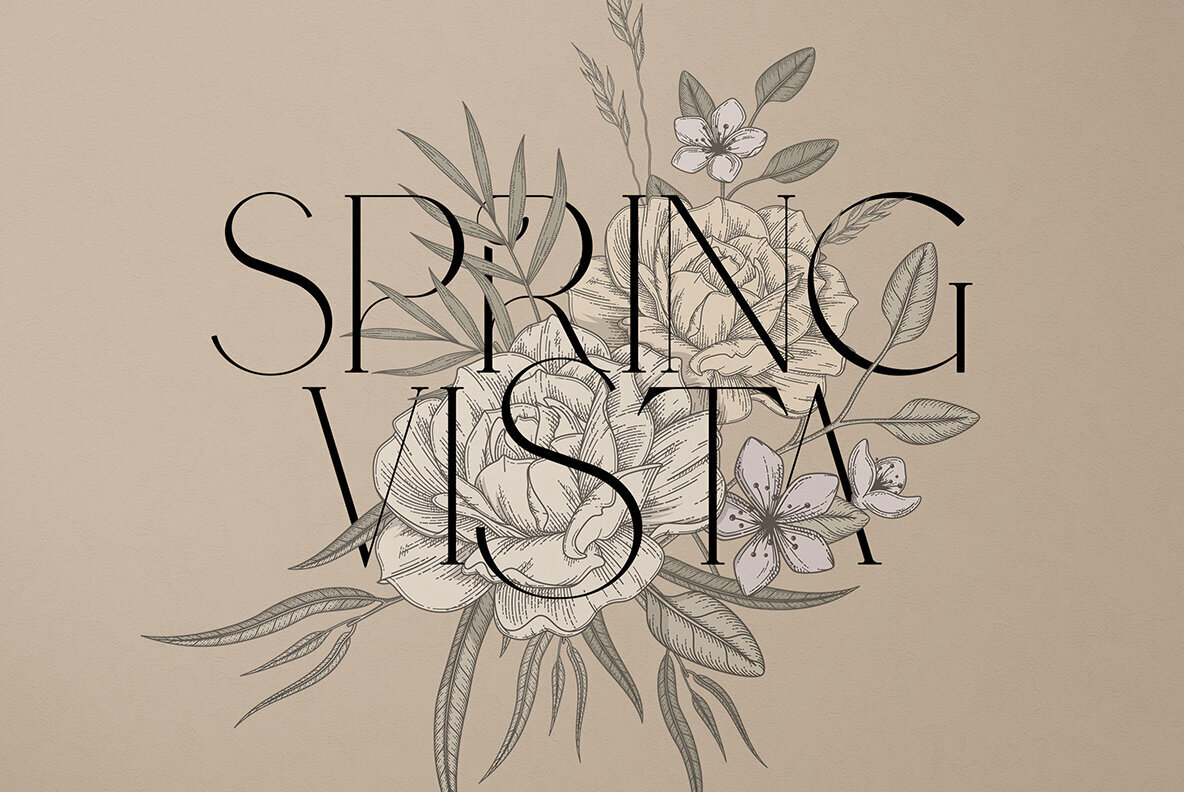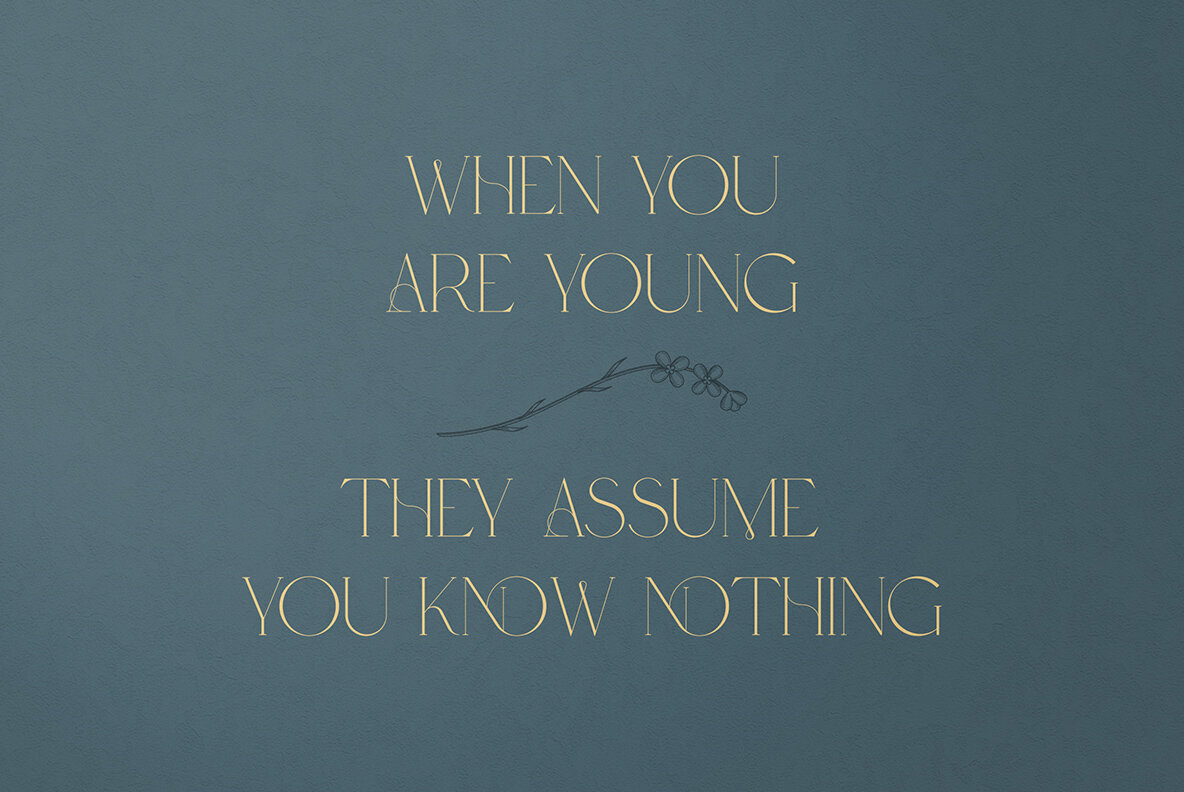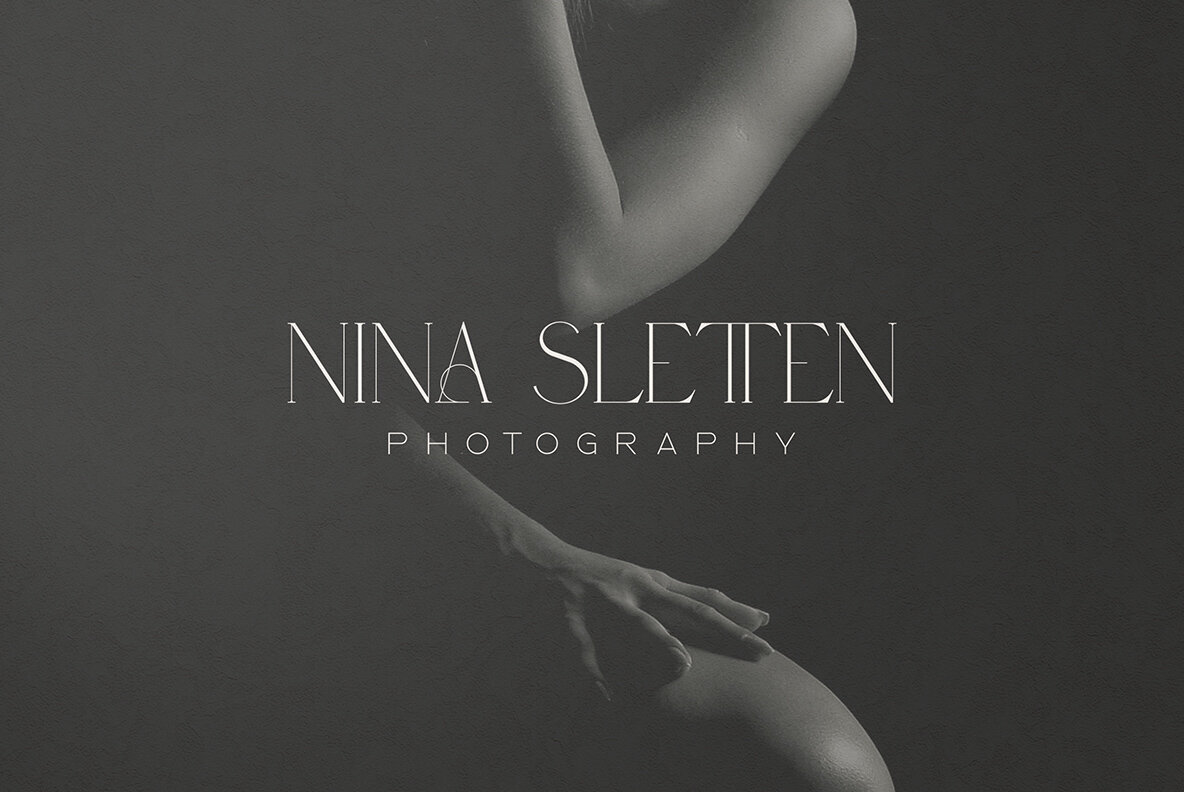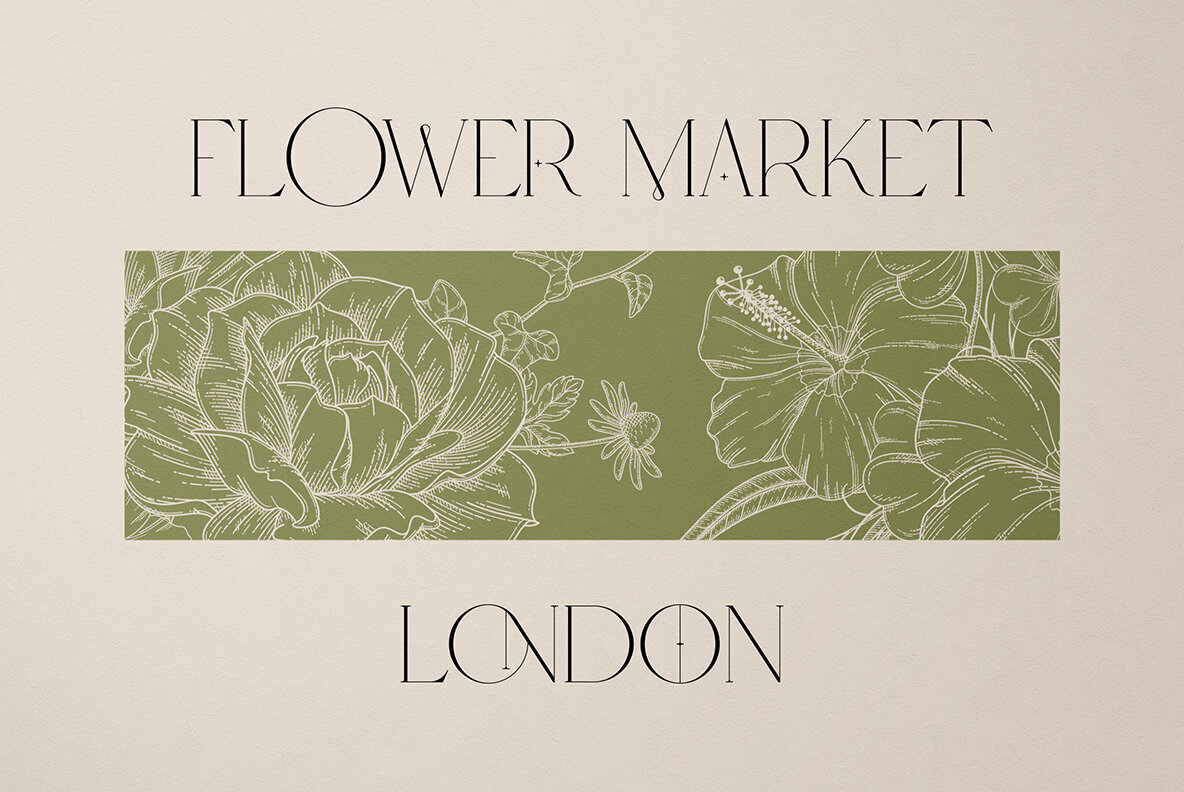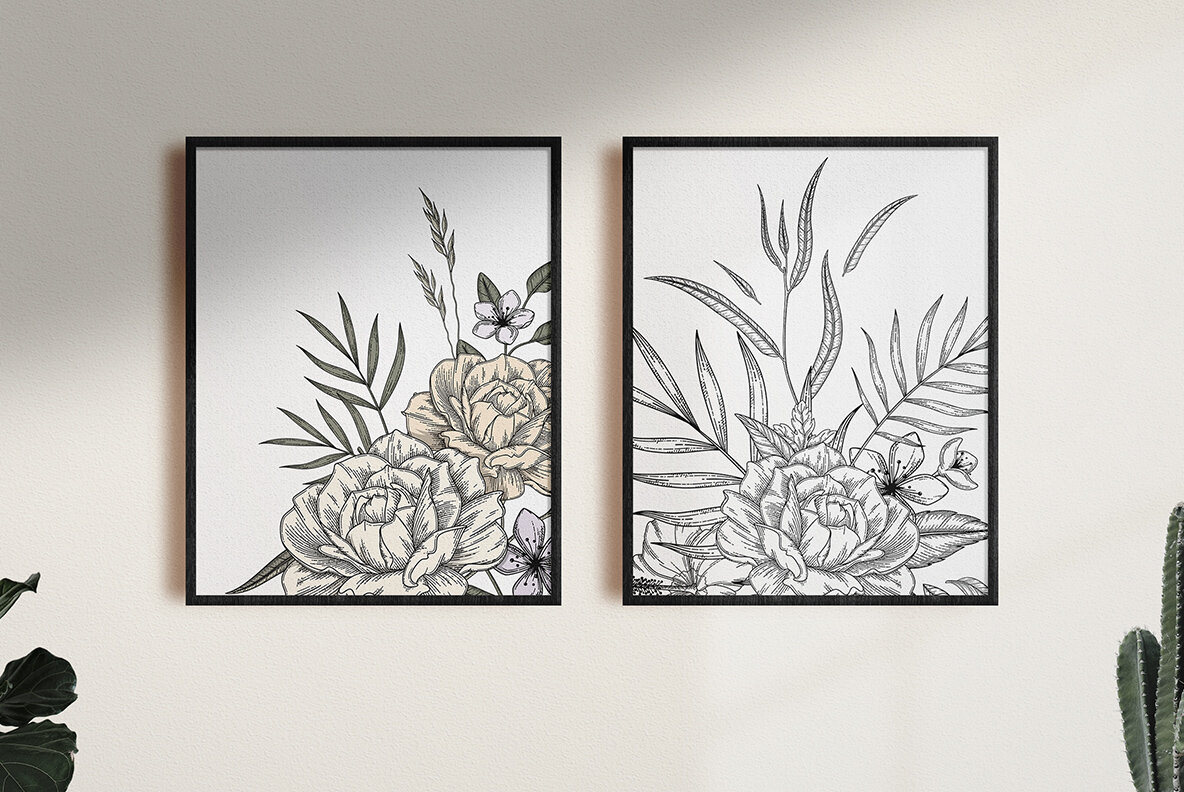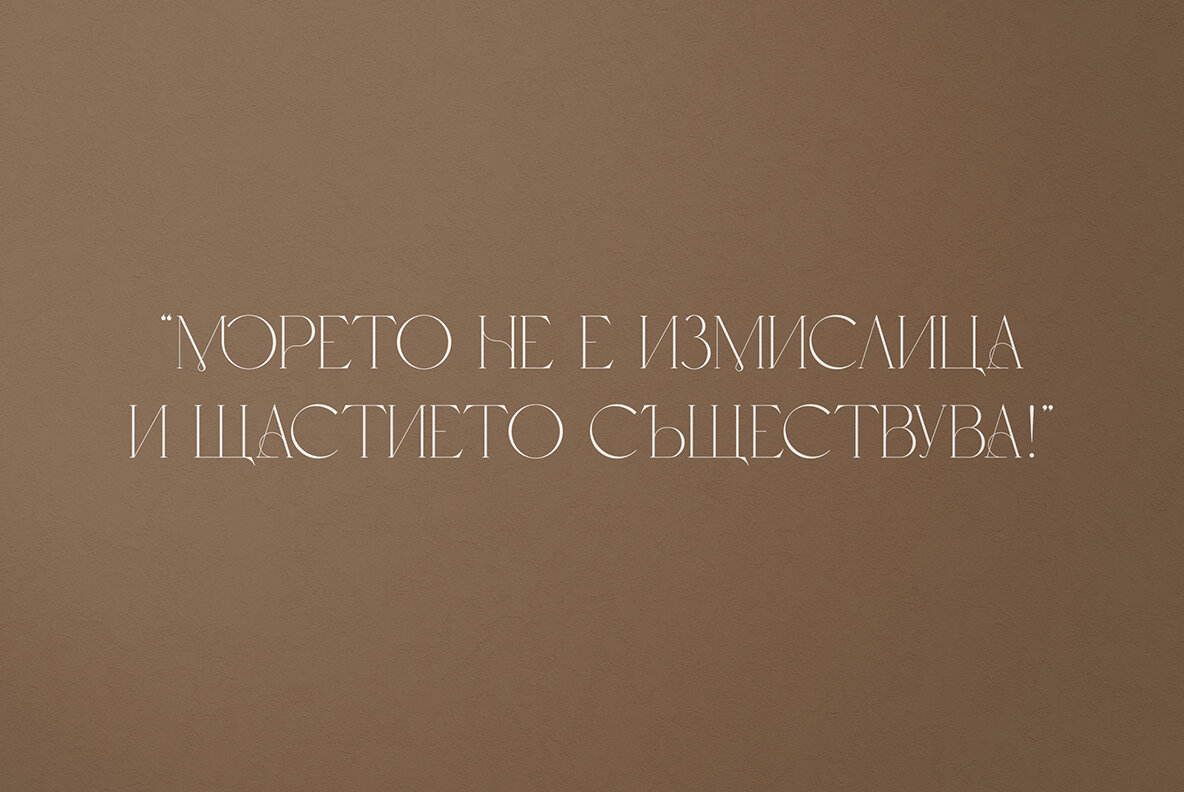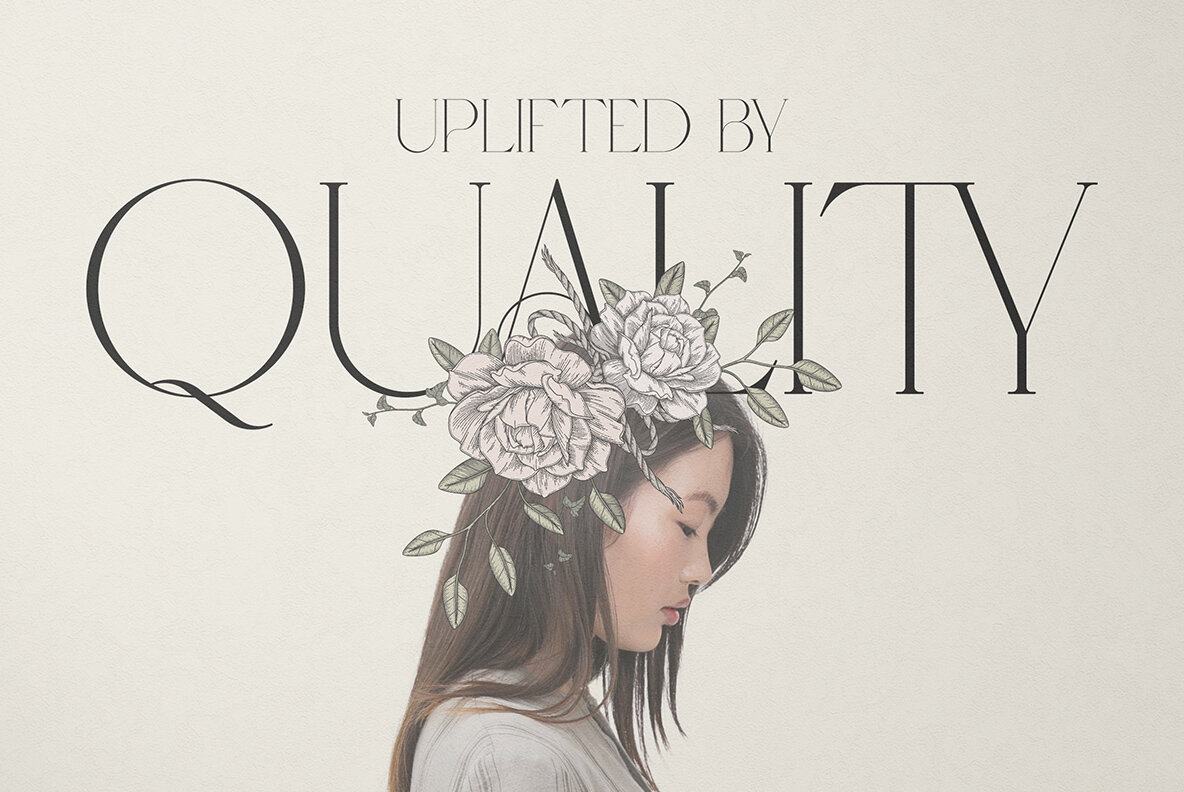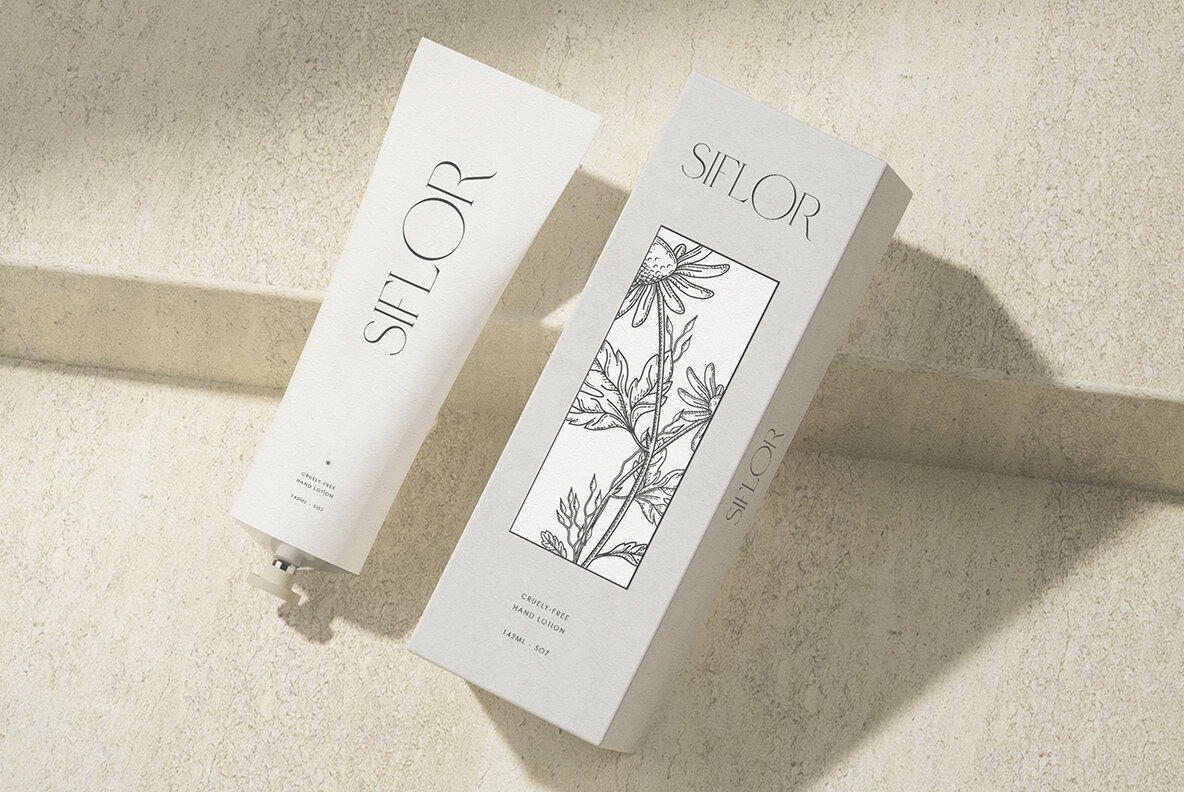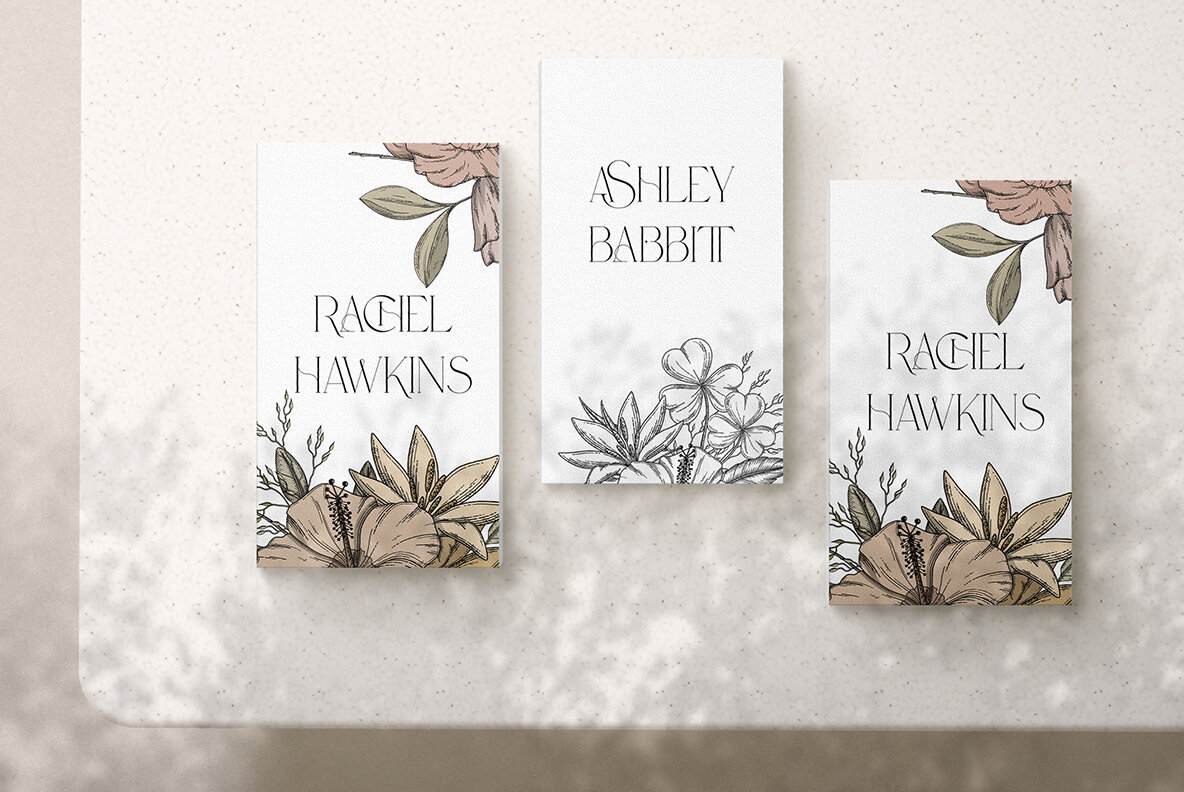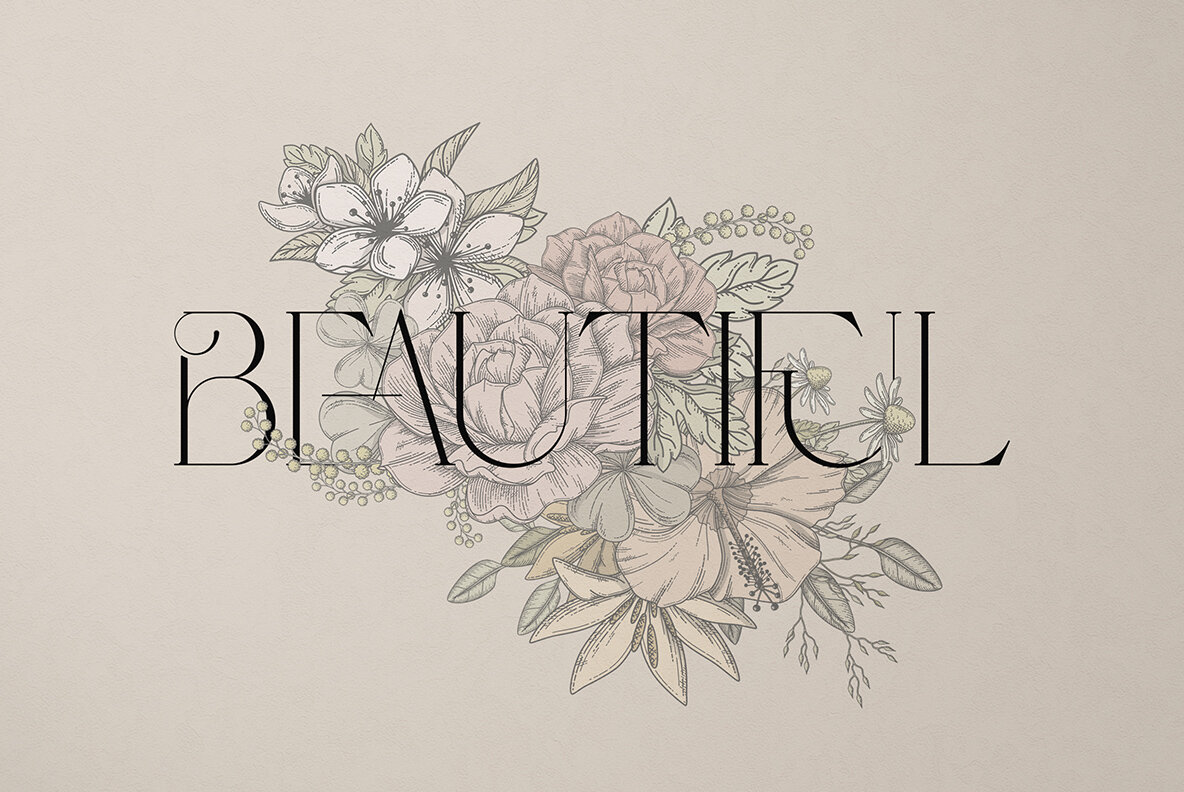
Probity Font
Probity Font and Vintage Floral Elements Package (1 font)
Probity creative serif font (Latin and Cyrillic) + vintage floral elements and compositions.
Probity is casual and creative font loaded with 95 languages support, alternate and ligature glyphs, clip art floral compositions and elements to make you typography truly unique!
FEATURES
• Uppercase, numeral, punctuation & symbol
• Ligature glyphs
• Alternates
• Multilingual support - 95 languages
• Cyrillic support
• Graphic Elements
• 18 color compositions
• 14 monochrome compositions
• 110 outline and filled elements with PSD files with changeable colors
• 26 floristic letters